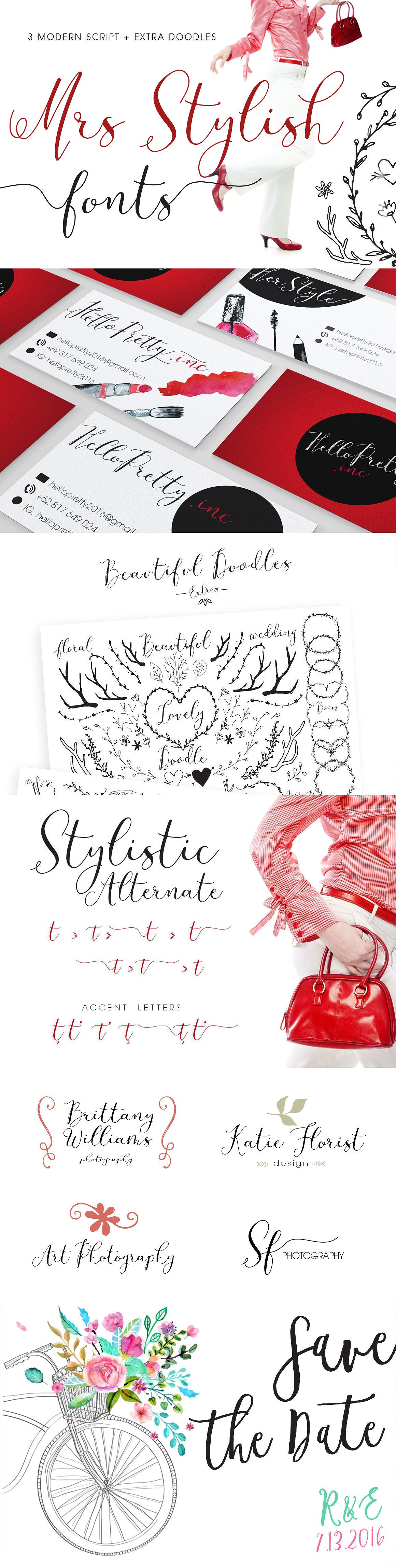
Mrs Stylish Script
Mrs Stylish Script Font
Mrs Stylish Script Font+Extras Update
Mrs Stylish font has extra alternative letters and swashes, combine them to get natural handwriting looks. Bonus handdrawn romantic floral doodle, in EPS vector and Font (You can use and resize this doodle Font, if you didn’t have vector software)